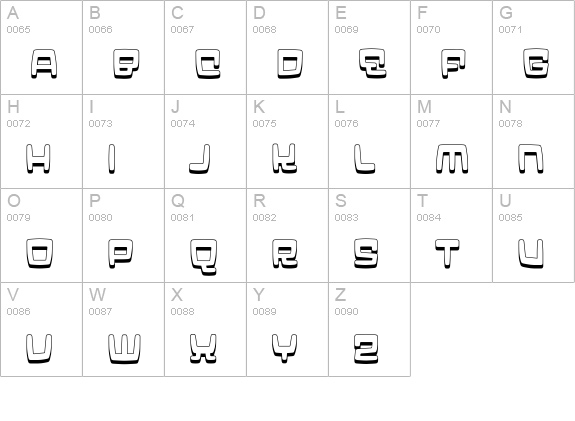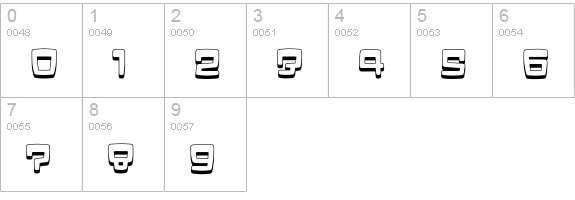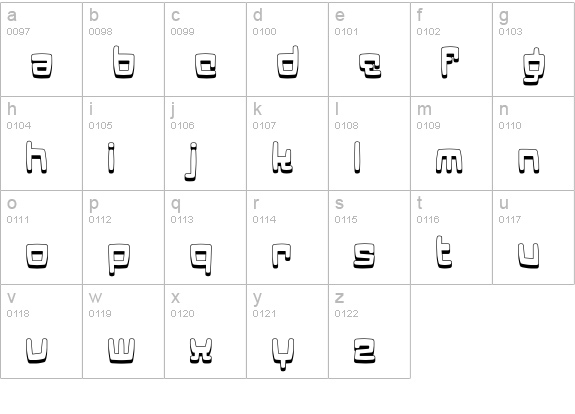
Elektron-Shaded Font Details
The Elektron-Shaded font is a visually striking display font that combines futuristic elements with a shaded effect, creating a unique and eye-catching design perfect for modern projects. Its sleek and edgy appearance makes it ideal for branding, headlines, posters, and more. The geometric shapes and intricate details of this font add a touch of sophistication and creativity to any design. Best of all, Elektron-Shaded font is available for free download at FontsMarket.com, making it easily accessible for designers and creatives looking to add a bold and contemporary touch to their work. Don't miss out on the opportunity to enhance your projects with this stylish and dynamic font that is sure to make a statement. Download Elektron-Shaded today and let your creativity shine!